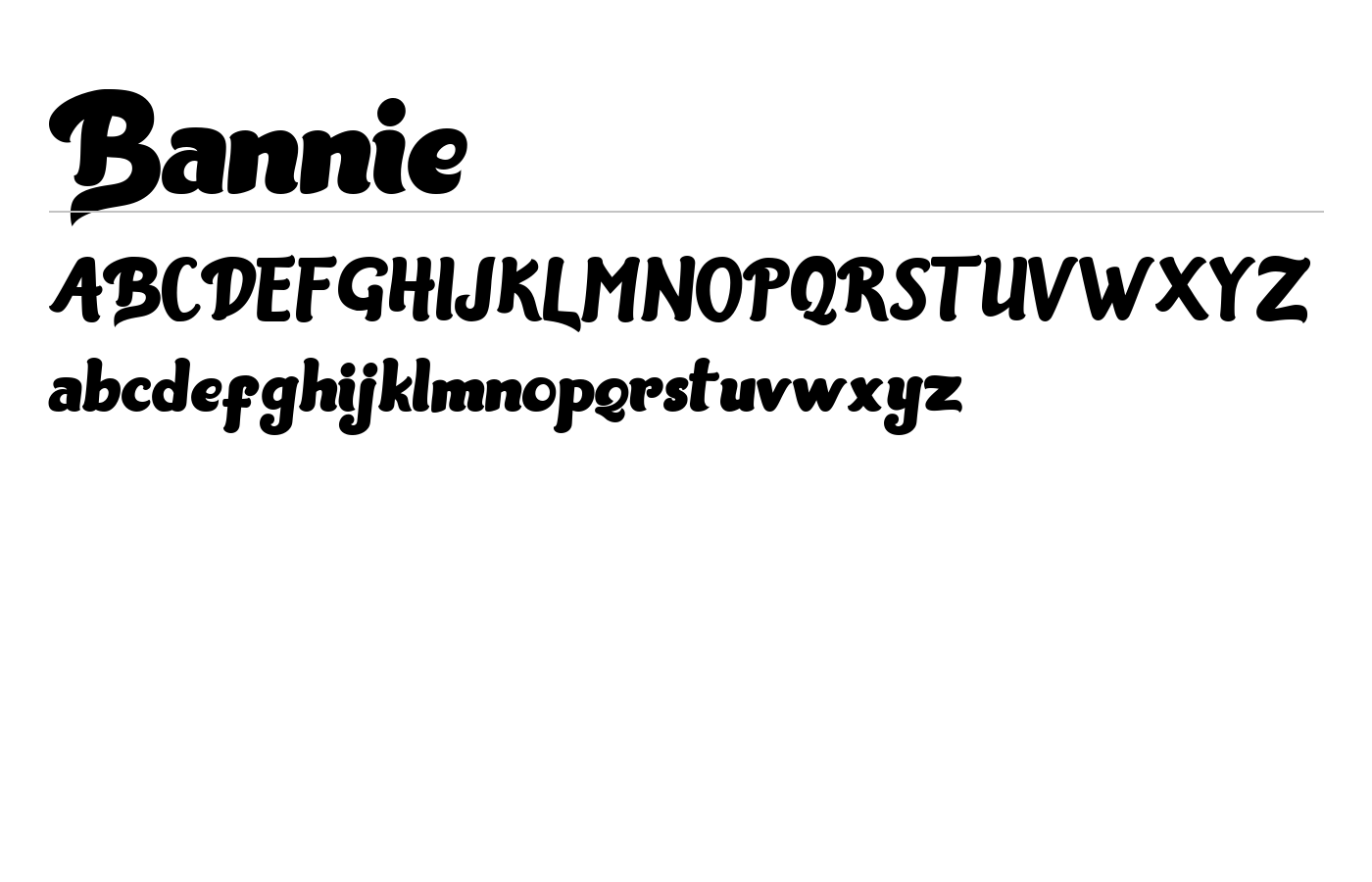
Bannie is a bold and playful serif font featuring thick, rounded strokes and a lively, hand-crafted feel. Its unique letterforms with exaggerated curves and a strong presence make it ideal for eye-catching headlines, branding, and packaging projects that want to convey friendliness and charm. This font works best where a warm, approachable personality with vintage flair is desired.
Bannie Font
About Bannie Font
| Font family | Bannie Font |
| Designer | Dian Haniffan Hadi |